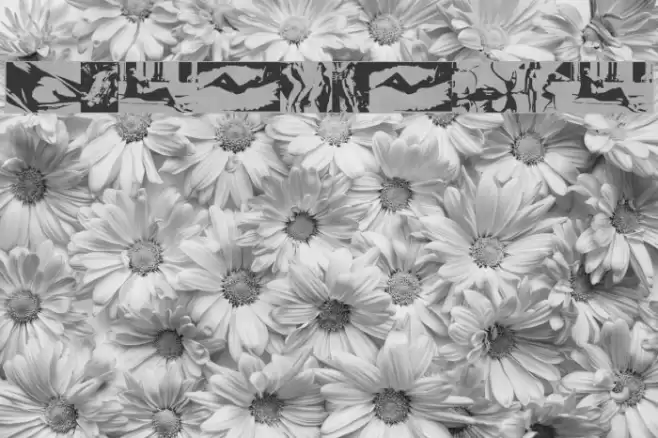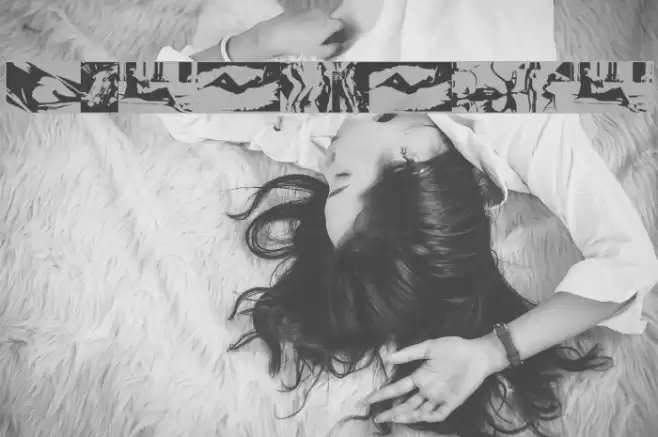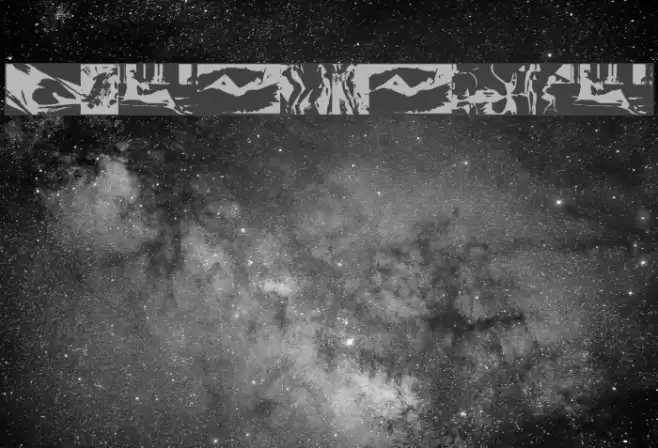
Abstractions Font
Abstractions Description
Highly abstract, high-contrast letterforms composed of black-and-white photographic or illustrative fragments, resulting in a visually complex and unconventional appearance. The glyphs are difficult to read and prioritize artistic expression over legibility.
Abstract, collage-style font with high visual complexity from Uncategorized fonts.
- Proposed Projects: Experimental posters, avant-garde art projects, album covers, conceptual branding.
- Overall Style: Abstract, Artistic, Experimental
- Use Case: Art installations, Posters, Experimental design, Editorial spreads